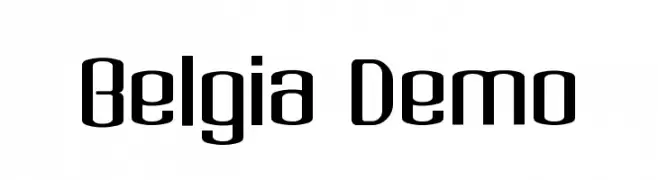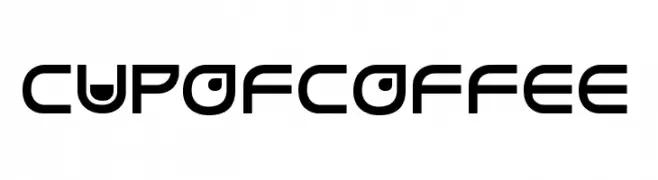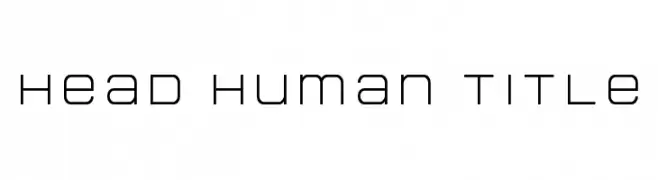
( Fonts by Dieter Schumacher )
A bold, geometric font with a modern, futuristic style.
( Fonts by ShyFonts )
A bold, extended font with a dynamic, vintage-inspired style.
( Fonts by AEnigma - www.aenigmafonts.com )
A futuristic, geometric font with clean lines and sharp angles.
( Fonts by www.fontmenu.com )
A modern, geometric font with clean lines and balanced spacing.
( Fonts by Ryoichi Tsunekawa - www.dharmatype.com )
A bold, geometric font with a modern and impactful design.
( Fonts by Jacob Fisher - www.pizzadude.dk )
A modern, geometric font with rounded edges and monospaced characteristics.
( Fonts by www.DigitalDreamDesign.net )
A bold, geometric font with a futuristic and digital aesthetic.
( Fonts by www.typodermicfonts.com - Ray Larabie )
A modern, italicized font with a sleek and dynamic style.
( Fonts by www.aenigmafonts.com )
A modern, rounded font with a geometric and monospaced appearance.
( Fonts by www.aenigmafonts.com )
A bold, rounded font with a playful, outlined style.
( Fonts by Graham Meade - GemFonts )
A sleek, modern oblique sans-serif font with semi-bold weight.
A futuristic, geometric font with a bold, modern design.
A bold, italic, futuristic font with angular, geometric letterforms.
A futuristic, geometric font with a condensed and technical design.
( Fonts by Divide By Zero! - fonts.tom7.com )
A geometric, linear font with a modern, hollow design.
A modern, geometric font with sharp, angular characters.
A modern, geometric font with clean lines and rounded edges.